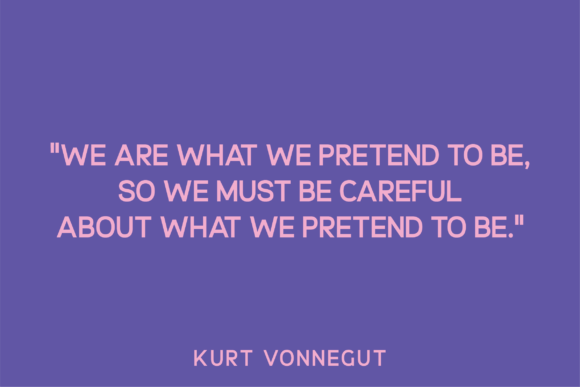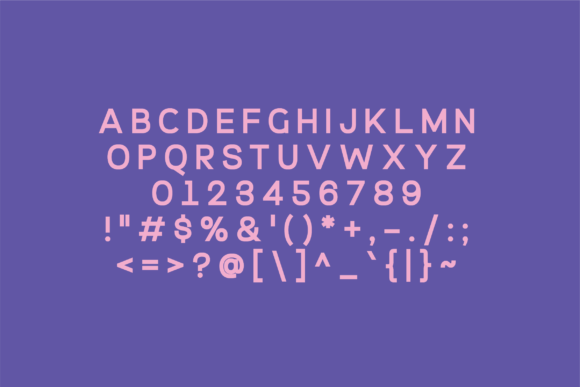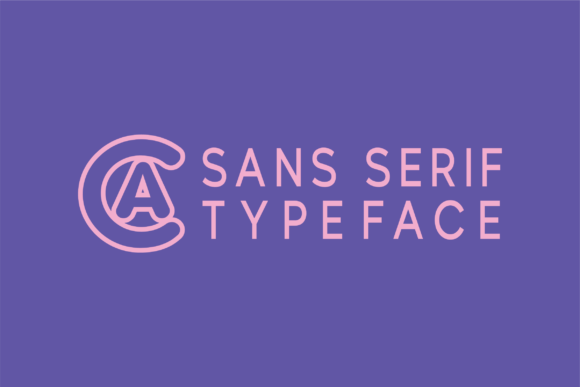
Introduction to Luminescence Font
Luminescence is a versatile, modern, and classy sans serif font perfect for logos, weddings, invitations, quotes, advertisements, print, magazines, and more.
Key Features of Luminescence Font